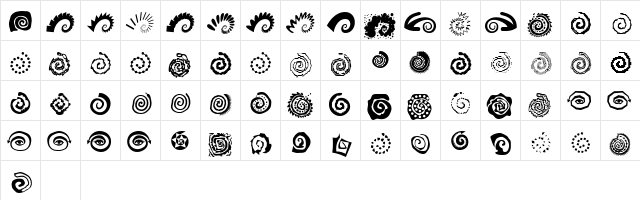
AleOrnamentsSpiratoLL Regular
Design Context for AleOrnamentsSpiratoLL Typeface
AleOrnamentsSpiratoLL is built around its visual character rather than neutral utility — its distinctive forms are designed to make an impression at display sizes.